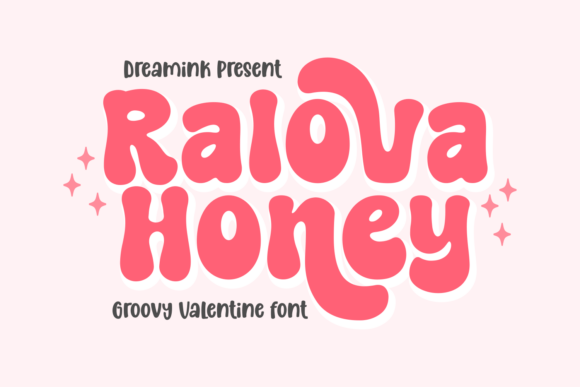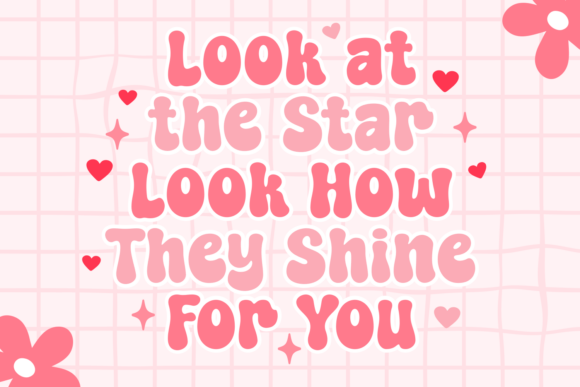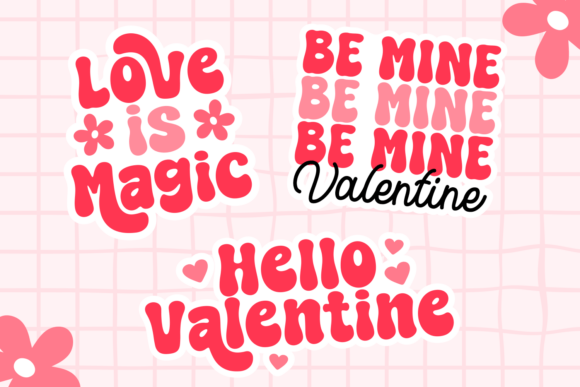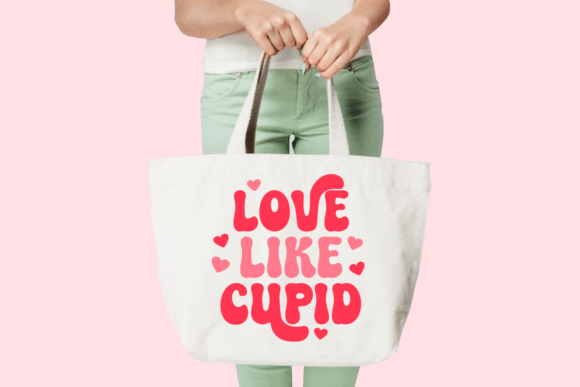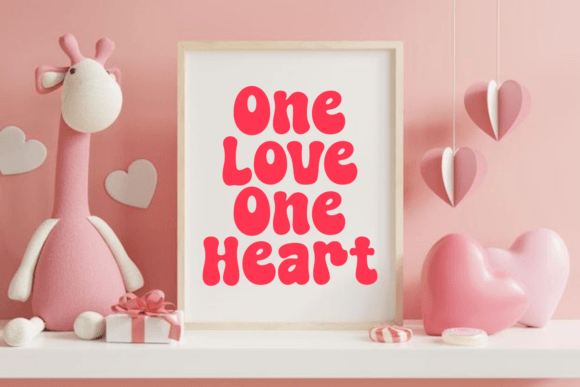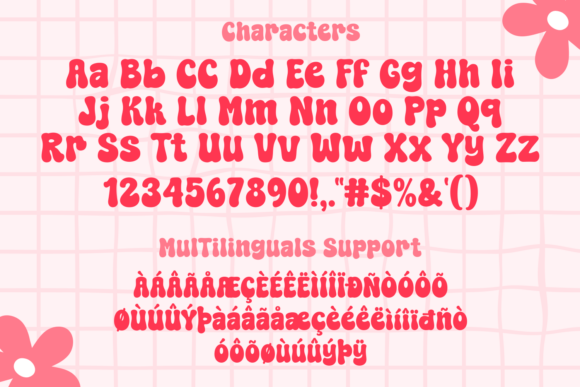
Ralova Honey Font
Introducing Ralova Honey, a timeless Valentine’s Font that exudes the ultimate retro chic. This dashing typeface is ideal for personal projects where style meets sentiment. Whether you’re designing tote bags, creating custom stickers, fashioning unique t-shirts, personalizing mugs or adding a dash of romance to your decorative wall art, Ralova Honey ensures your project bathes in a honey-sweet classic glow. This font offers more than just letters; it’s a creative tool that turns every design into an artwork. It’s irresistible, trendy, and undoubtedly, a must-have for anyone with a penchant for vintage elegance.